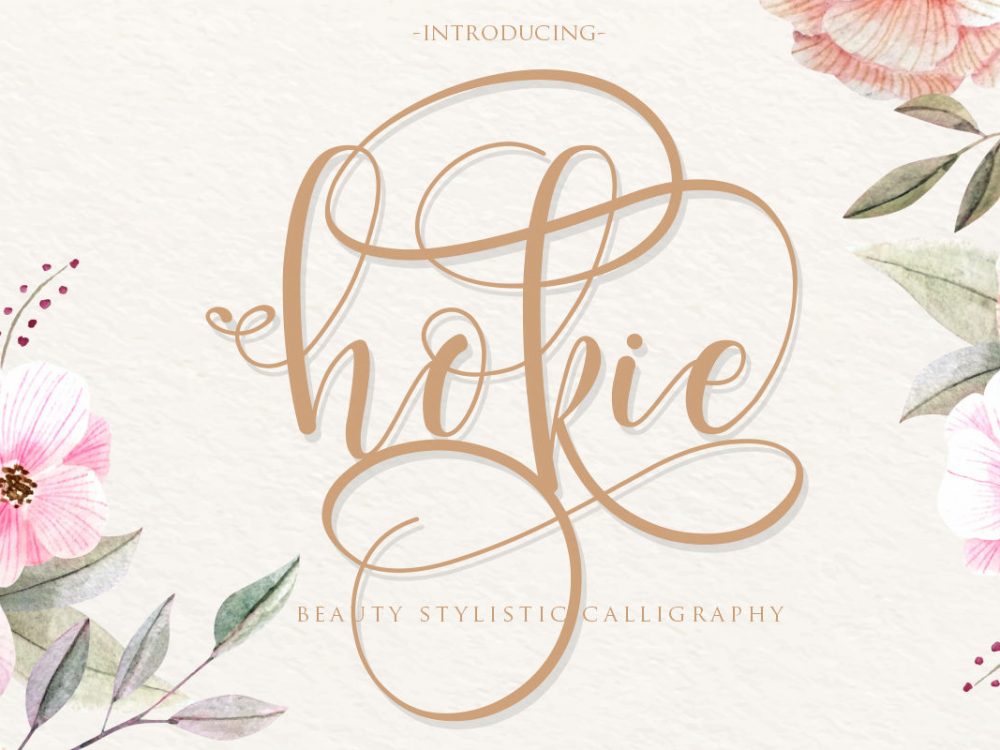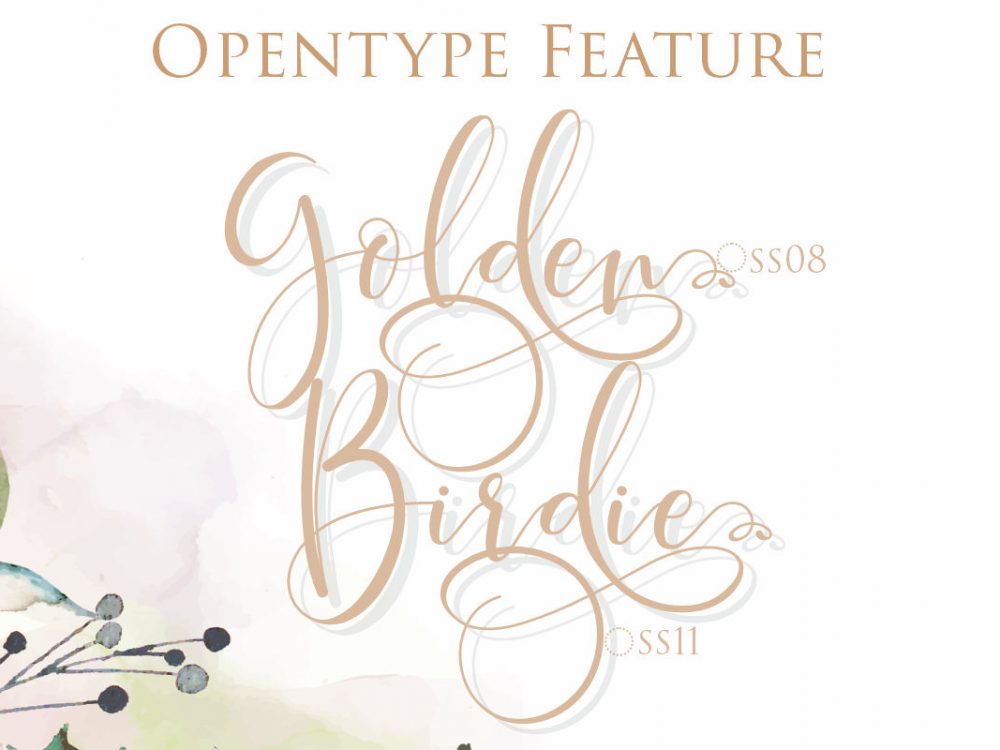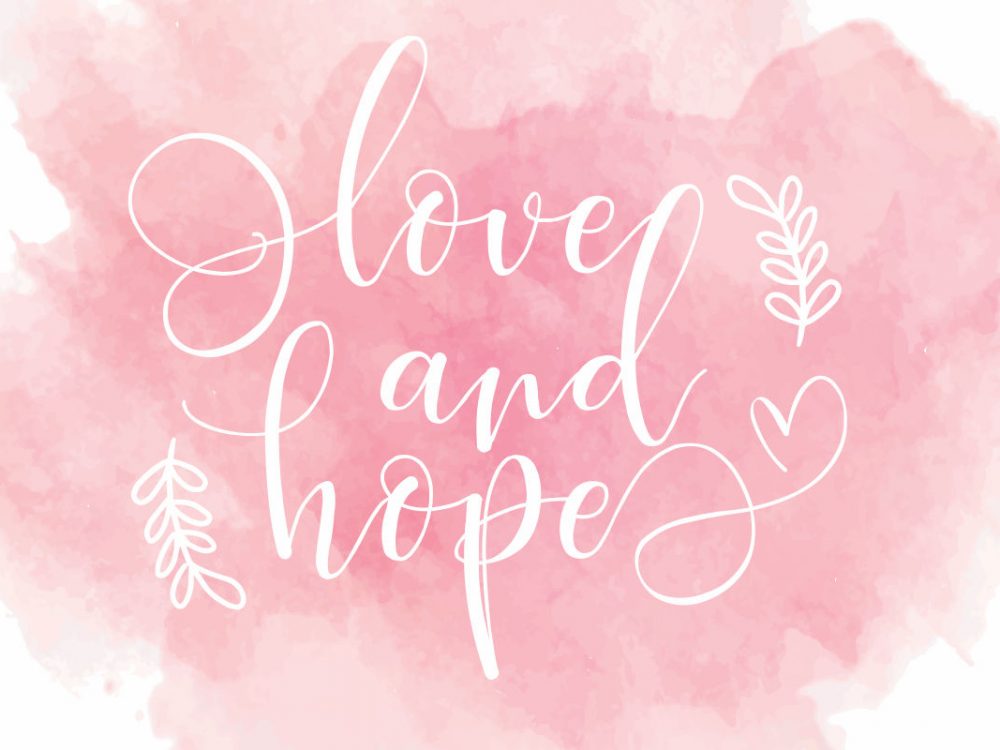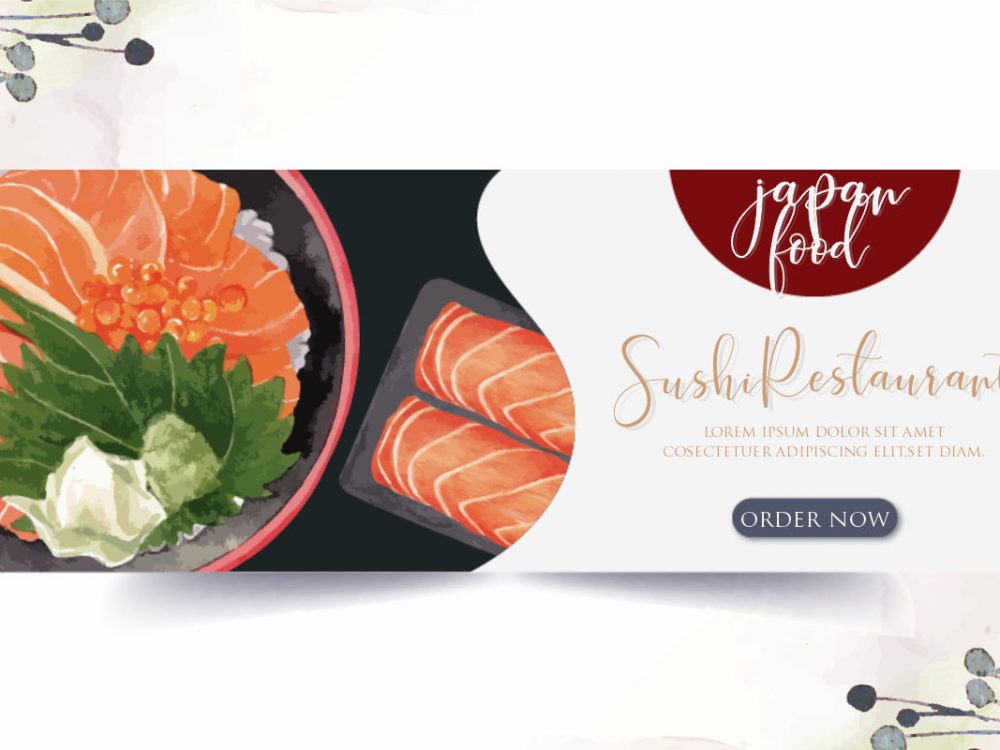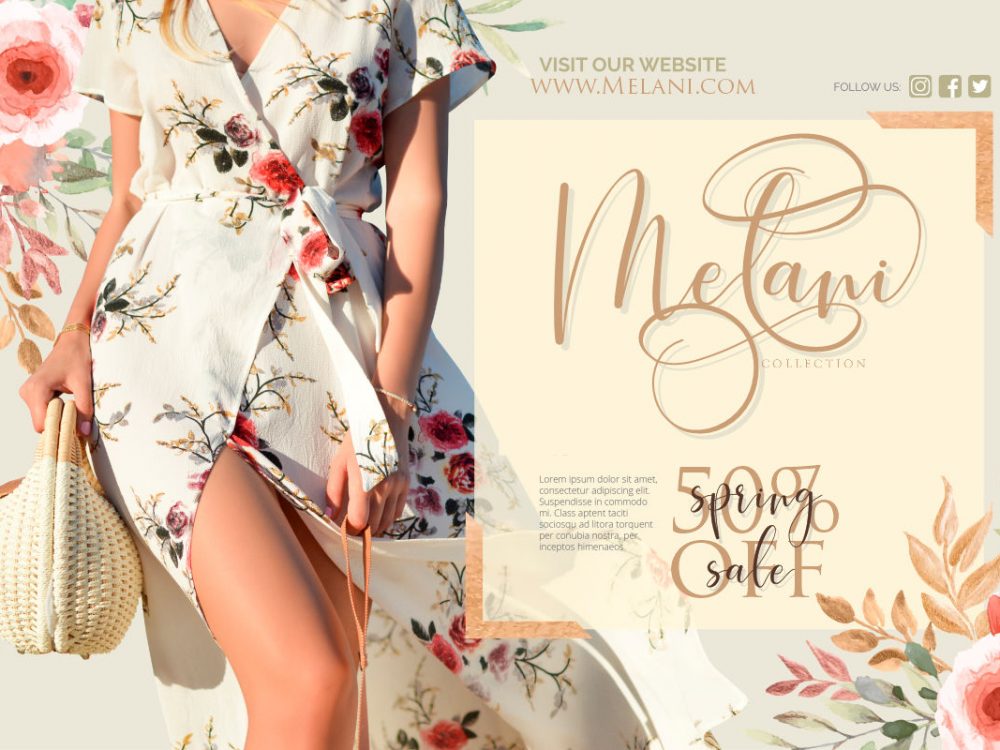
Hokie Free Font
Hokie Free Font is a modern typeface with a calligraphic style. This font will work well for many of your design projects that require a scripted calligraphic font. You can use this font to create memorable posters, wedding invitations, greeting cards, branding, flyers, t-shirt and pillow prints, and more. Improve the quality and increase the popularity of your design projects by using this font. If you like it don’t forget to check out the full version.